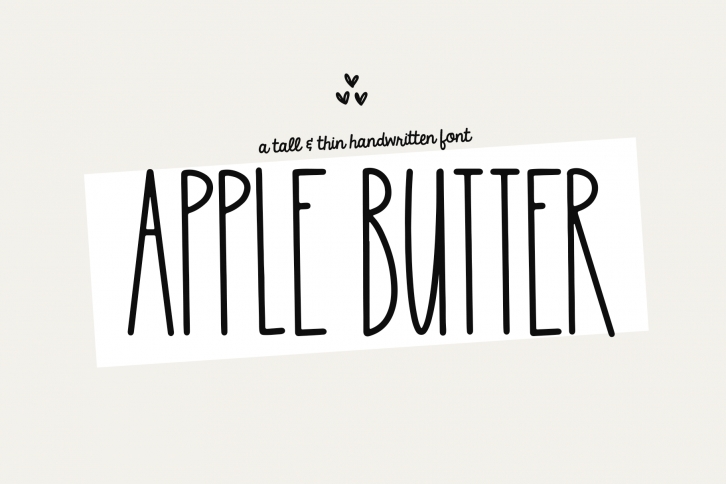
Apple Butter is a gorgeous font that was realeased on January 28, 2020. The font can be used in many style contexts and design environments. Perfect for invitations, magazines, websites, logos, and more! It was designed by KA Designs and the file size is 21.58 MB. Thanks for checking out this font!